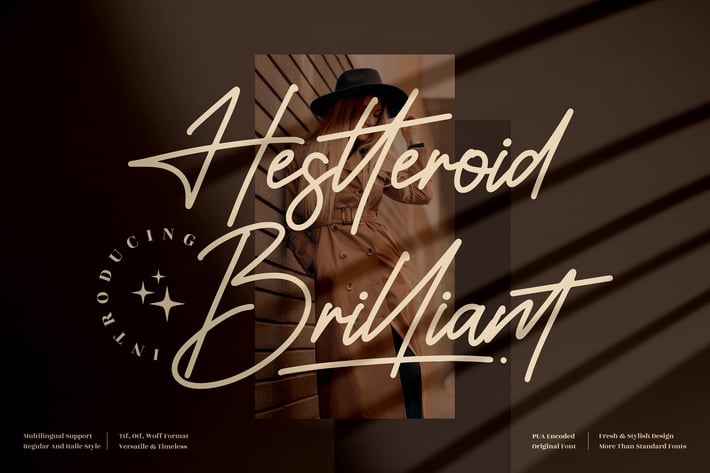
Hestteroid Brilliant Signature Font
Hestteroid Brilliant is a luxurious signature font designed to express sophistication and modern charm. With elegant strokes and a fluid handwritten feel, it captures the essence of a personal touch while maintaining high readability. The smooth and confident letterforms make it perfect for creating a timeless, high-end aesthetic.
This font is ideal for designers looking to add class and style to their branding, photography, or editorial projects — giving every word a sense of identity and exclusivity.
Features::
Signature handwritten style
Regular & Italic versions
Uppercase & lowercase letters
Numbers, punctuation & alternates
Branding & logo design
Fashion and photography projects
Wedding invitations
Editorial design
Product packaging
Social media content
Signature and personal branding
Refined, elegant, and effortlessly modern — Hestteroid Brilliant adds a touch of luxury and individuality to every design.